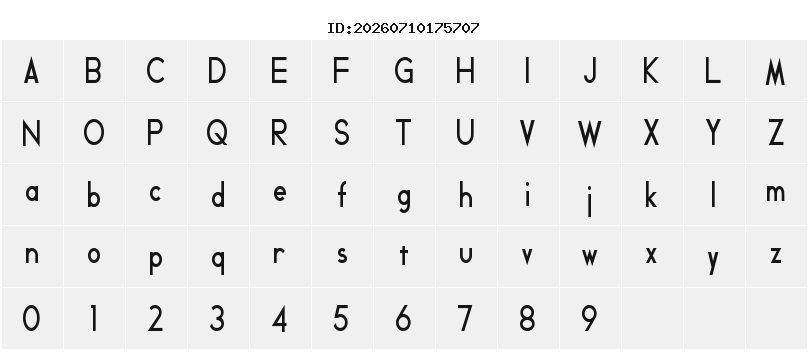
Geddes Narrow Preview
• Font Name: Geddes Narrow
• Font ID: Geddes Narrow Bold:Version 1.30
• Full Font Name: Geddes Narrow Bold
• Version: Version 1.30 March 28, 2013
• PostScript Name: GeddesNarrow-Bold
• Designer: Neale Davidson
About Geddes Narrow.ttf
Geddes Narrow.ttf is a modern, elegant sans-serif font designed for ultimate readability and visual harmony. Perfect for branding, headlines, web design, and print materials.